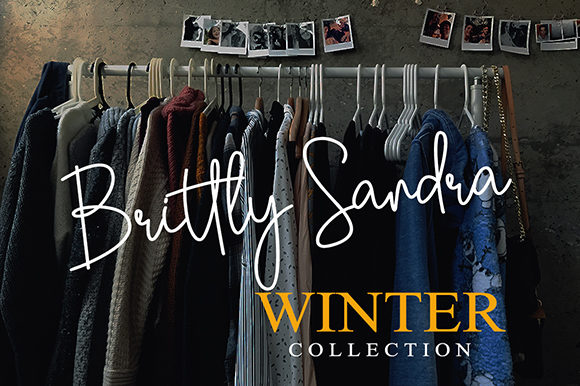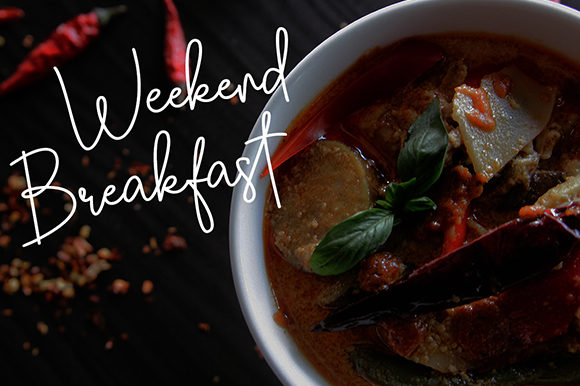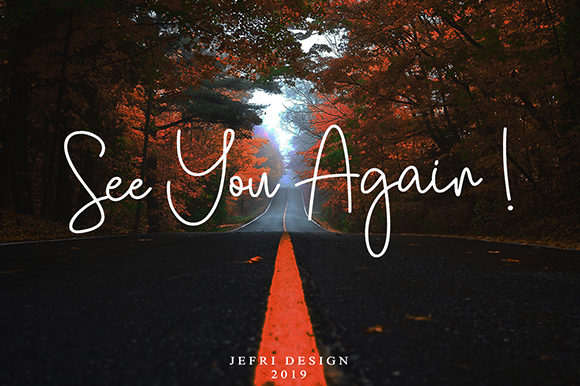
Southwill Font
About Southwill Font
Southwill is a fun and sweet handwritten font with a unique style. Get inspired by its cool charm, and turn any design project into a true standout!